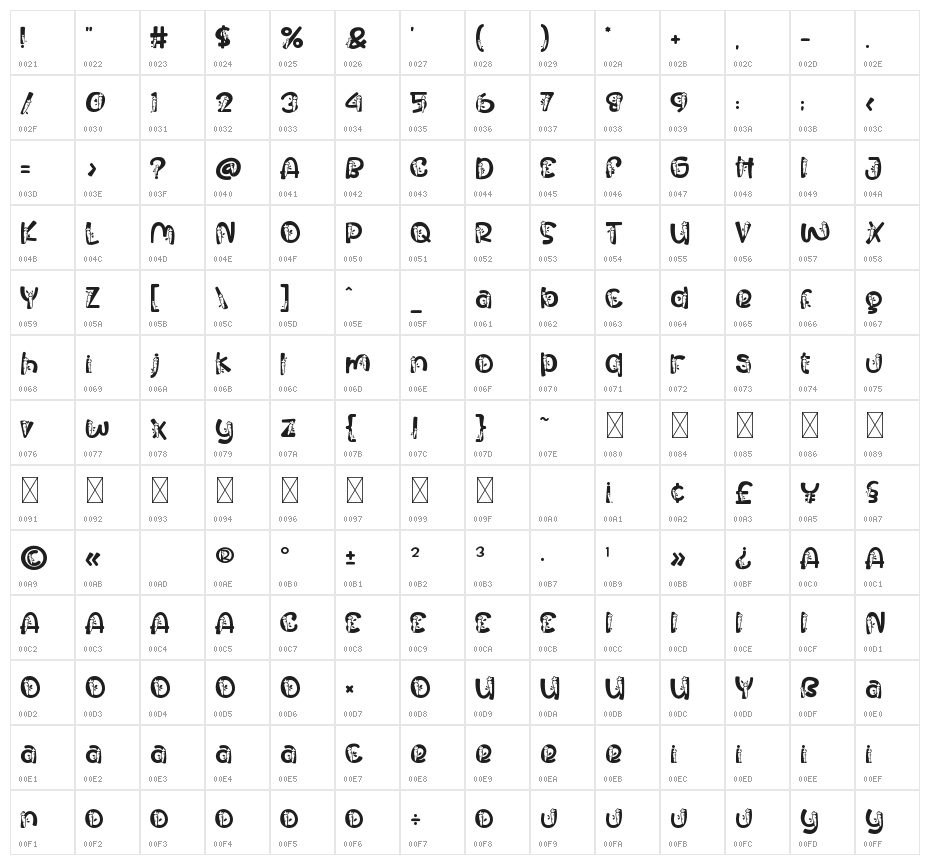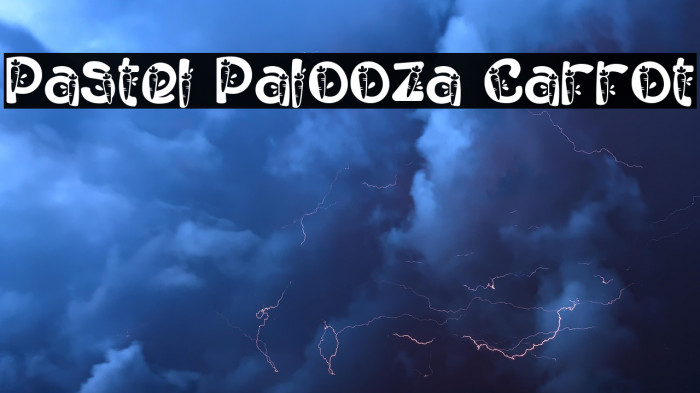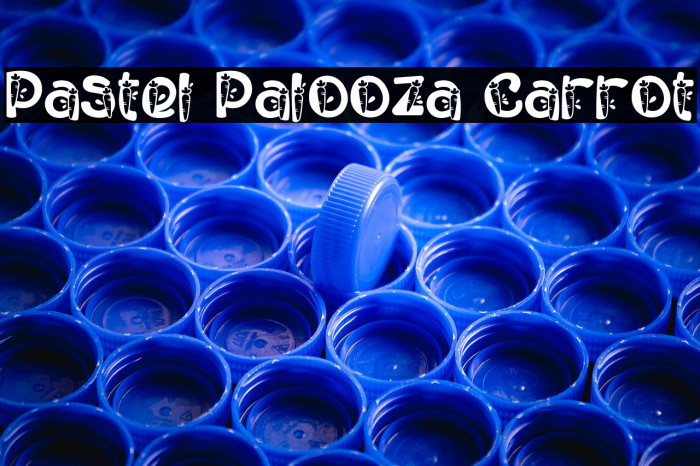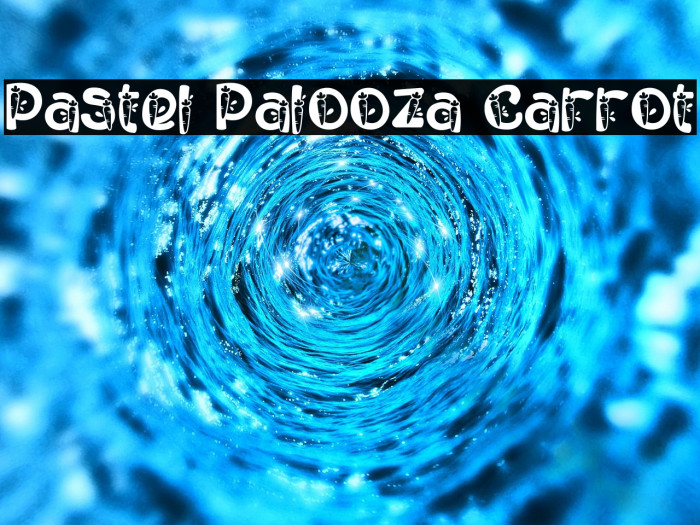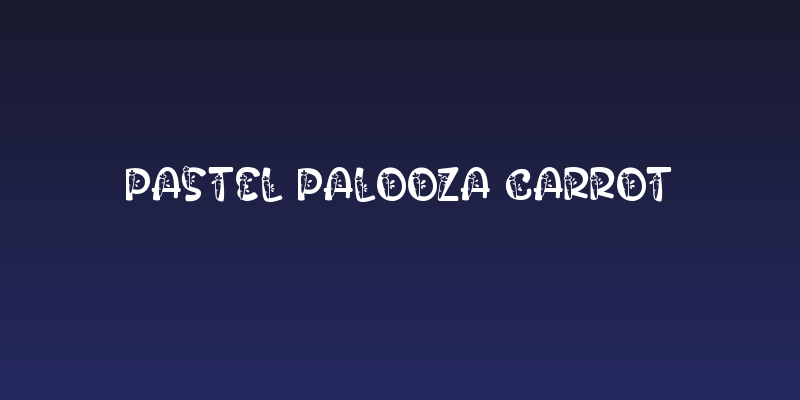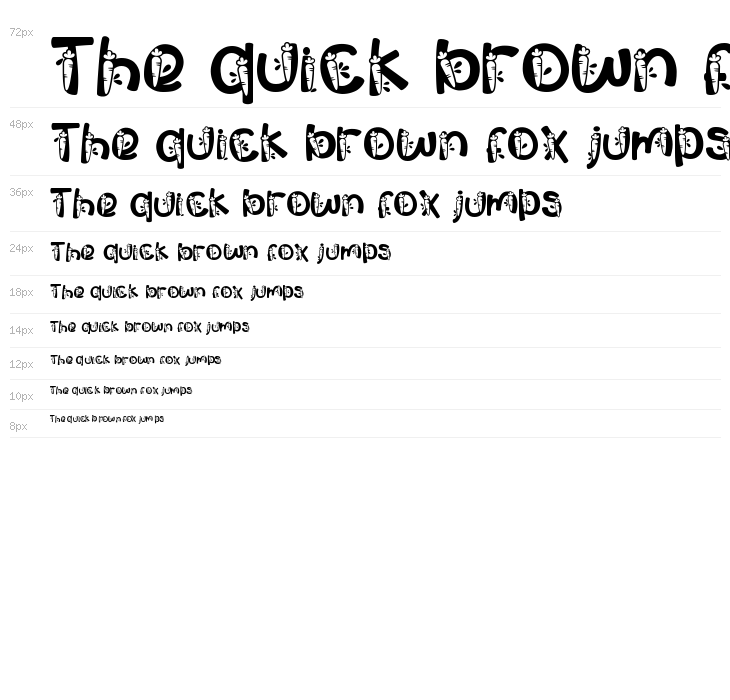
Pastel Palooza Carrot Font
Pastel Palooza Carrot Description
This playful and whimsical font features a unique design where each character is creatively integrated with a carrot motif. The letters are bold and rounded, giving a friendly and approachable feel. The carrot elements are cleverly incorporated into the strokes of each character, adding a decorative and fun touch. This font is perfect for projects that require a lighthearted and imaginative style, such as children's books, playful branding, or themed event invitations. The overall design is both eye-catching and memorable, making it suitable for various creative applications.
| Proposed Projects | Ideal for children's books, playful branding, themed event invitations, and creative posters. |